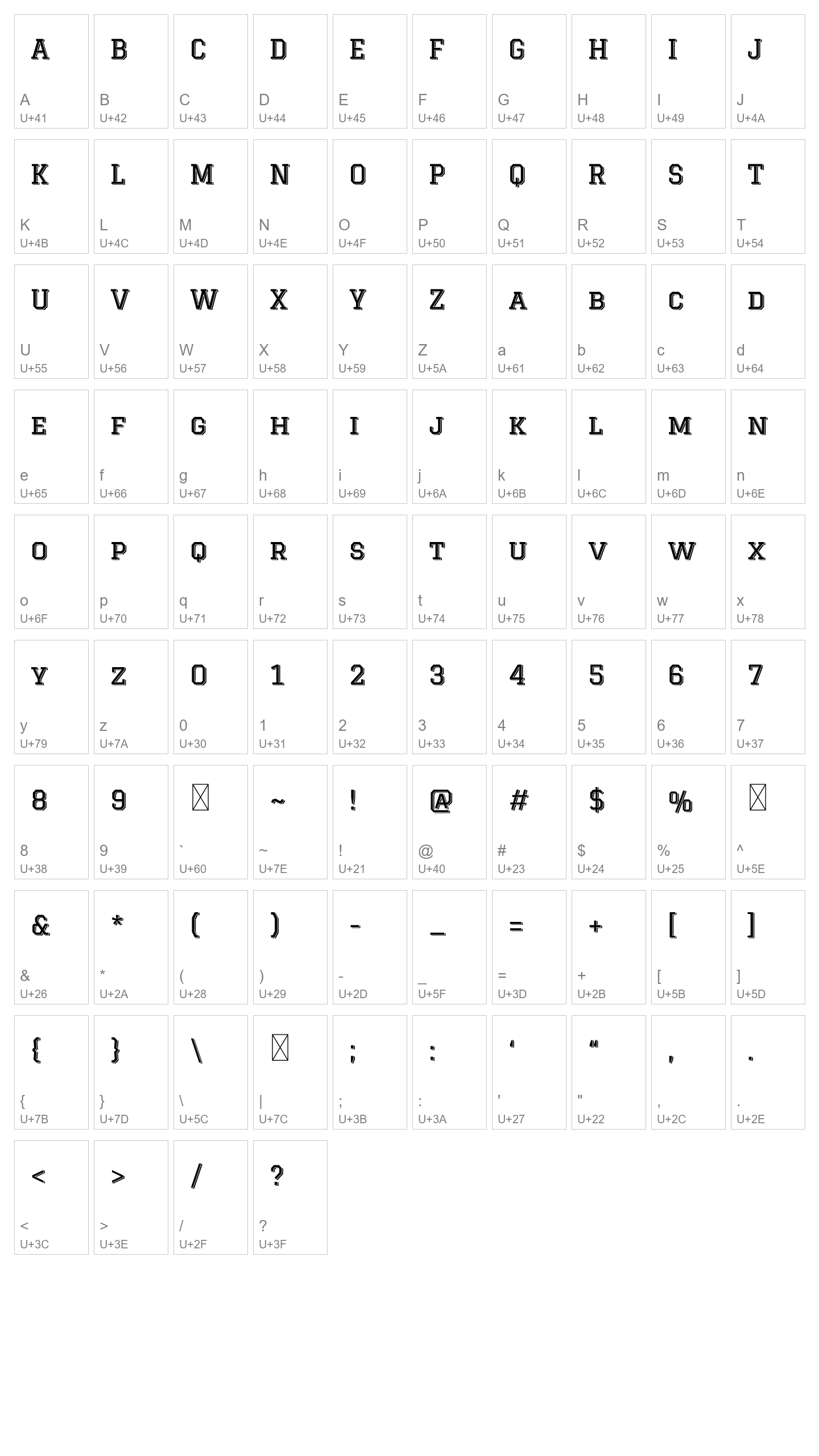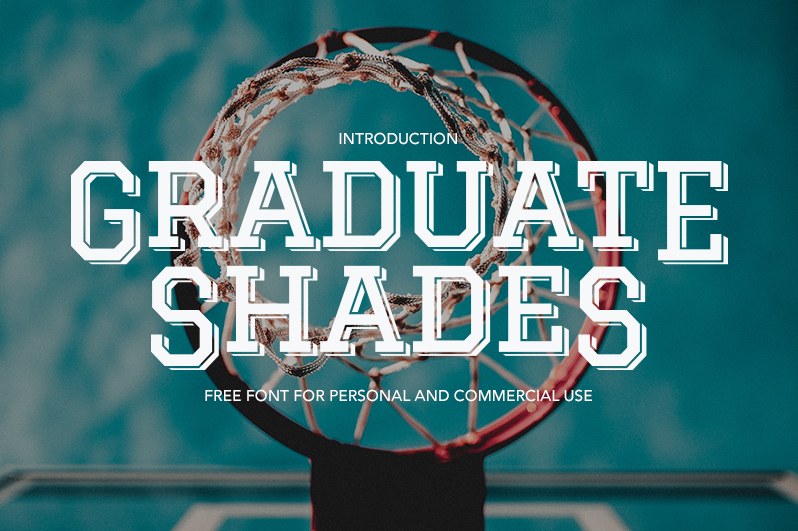
Graduate Shades
This font is a modified version of the Original Graduate font which has an OFL license. This font only provides Basic Latin characters, if many download this font version, I will update it with the addition of other characters.